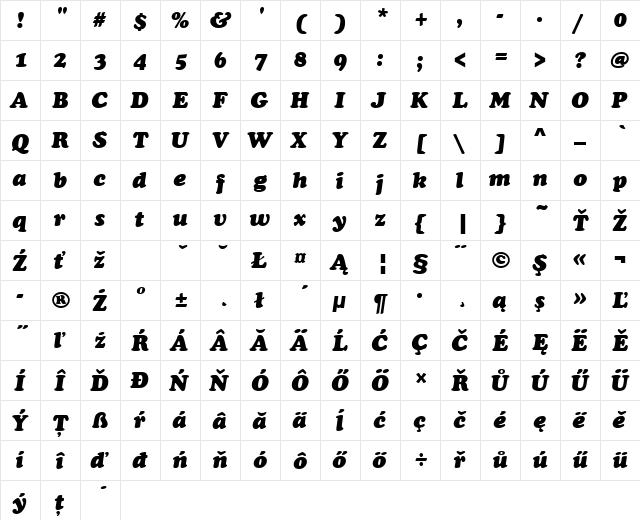
CooperBlaDEE Italic
Design Context for CooperBlaDEE Typeface
CooperBlaDEE takes a measured approach to typography — its balanced proportions and neutral character make it a reliable workhorse for both digital and print work. Its italic angle brings a sense of urgency and motion to the letterforms.
Pro Tip: Try CooperBlaDEE for annotation and caption copy alongside an upright companion — the contrast in angle creates a dynamic but ordered typographic system.